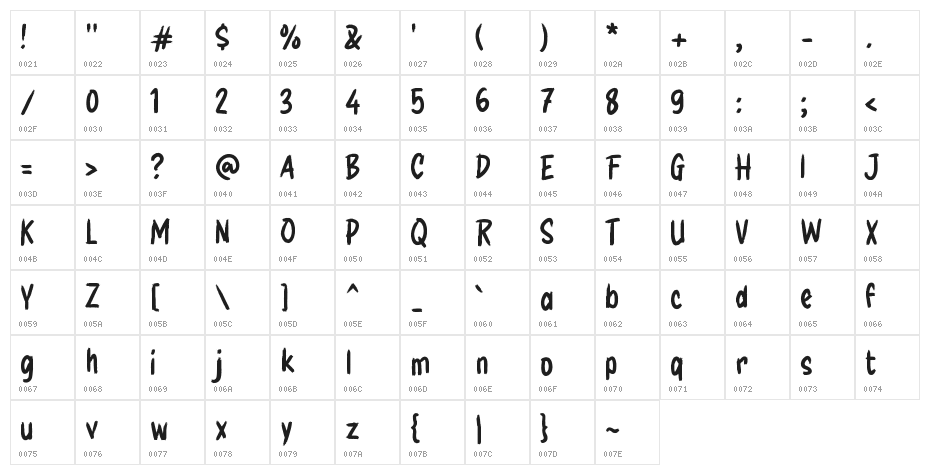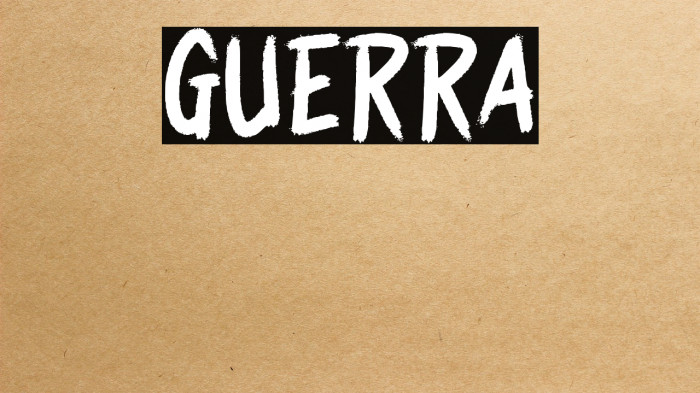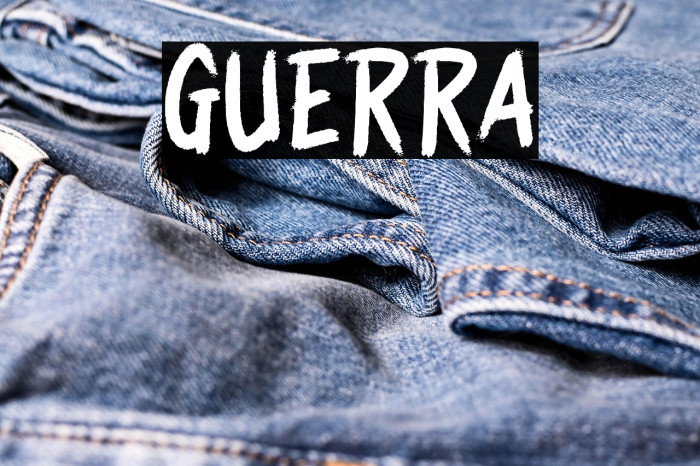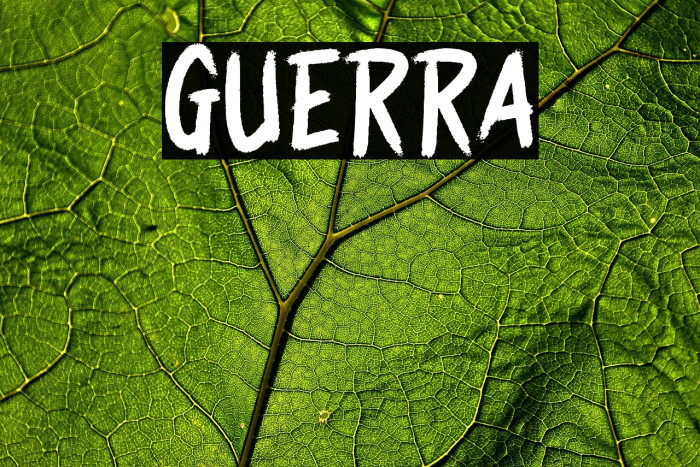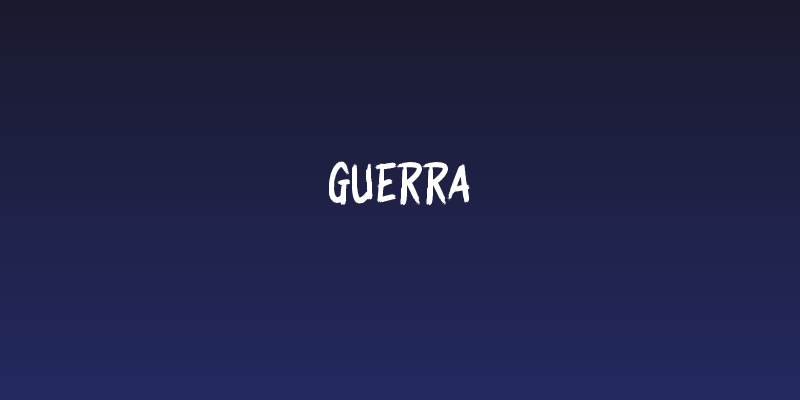
GUERRA Font
GUERRA Description
This font features a bold and expressive handwritten style, characterized by its thick, uneven strokes and dynamic appearance. The letters have a casual, artistic flair, with slightly irregular shapes that give it a lively and energetic feel. The uppercase and lowercase letters maintain a consistent style, while the numerals and special characters complement the overall aesthetic. The font's rough edges and brush-like texture add to its informal and creative vibe, making it suitable for projects that require a personal touch or a sense of spontaneity.